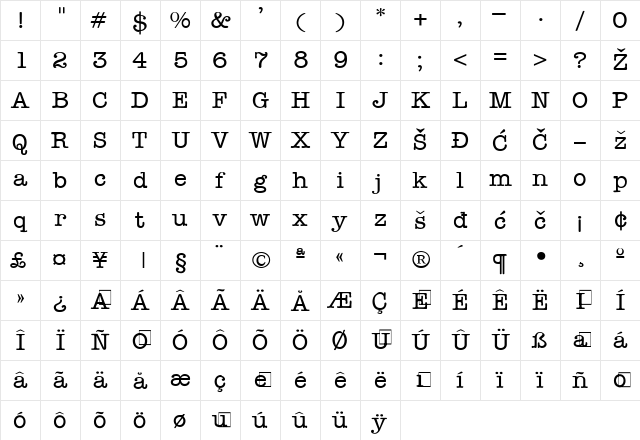
American Typewriter YU Regular
Design Context for American Typewriter YU
American Typewriter YU uses fixed-width spacing throughout, giving it the structured, systematic character associated with coding environments and technical documentation.
Pro Tip: Use American Typewriter YU with slightly increased line-height for extended reading - fixed-width spacing can feel dense in longer passages without extra breathing room.